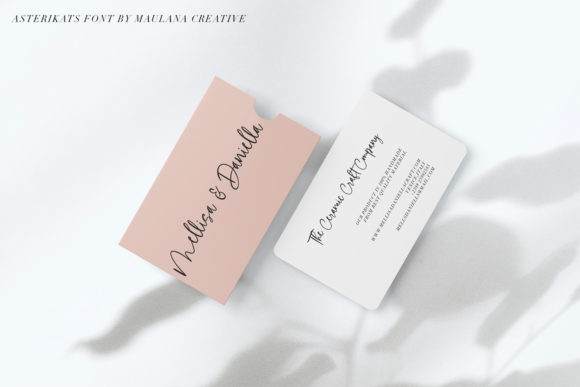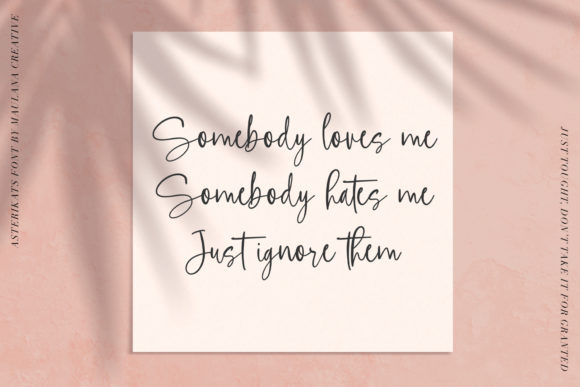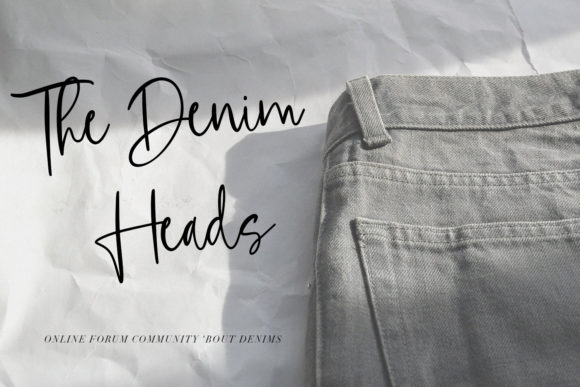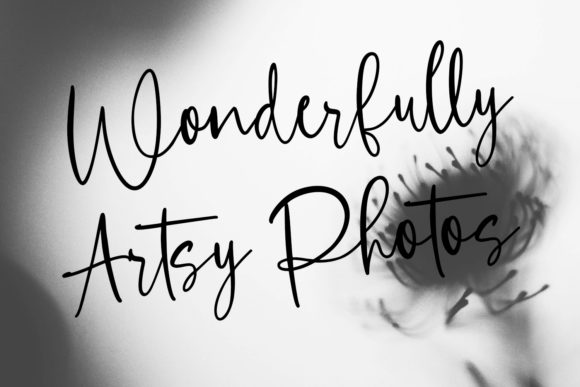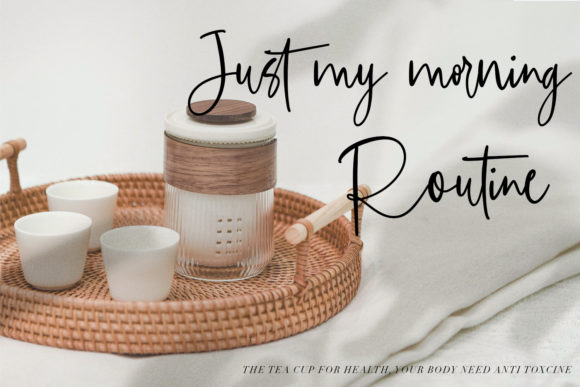
Asterikats Font
About Asterikats Font
Asterikats is a thin, stylish and relaxed script font. It will instantly elevate each of your designs requiring a personalized touch. Have fun with this beautiful font and explore its endless variations